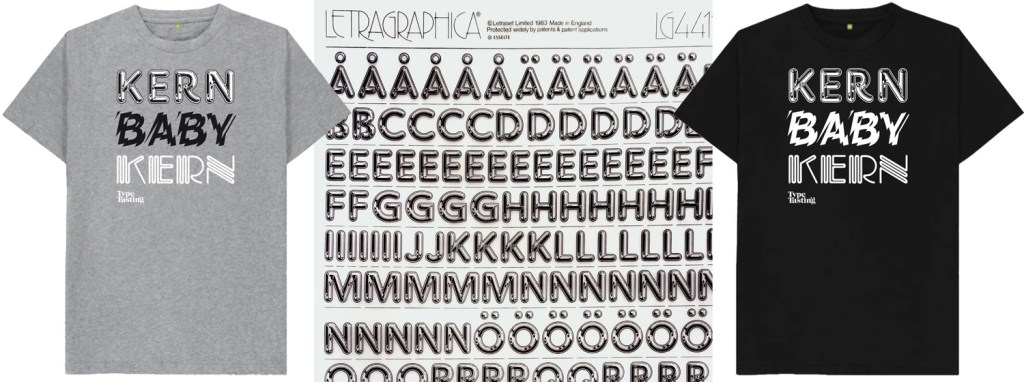
What’s the story behind the t-shirt?
This t-shirt is inspired by the song Disco Inferno by the Trammps. It’s a disco classic and almost impossible to listen to without dancing along.
Kerning is a geeky typography term for the spacing between individual letters. There are lots of examples of when kerning goes wrong with unfortunate and amusing results. One of my near-misses was when I set the words FLICK THE PAGES on a scented book for an exhibition. I realised just in time that the close spacing between the L and I looked more like a U. Oops.
The three typefaces that feature on the Kern Baby Kern t-shirt were available as rubdown Letraset sheets. Chromium One was designed by David Harris in 1983. This was perfect for a decade of chrome and airbrushed posters. Shatter is an experimental typeface designed by Vic Carless in 1973. Carless literally smashed Helvetica up, which is what Punk did to Modernism in the 1970s. Piccadilly was designed by Christopher Matthews in 1973—this neon font is pure 1970s disco.